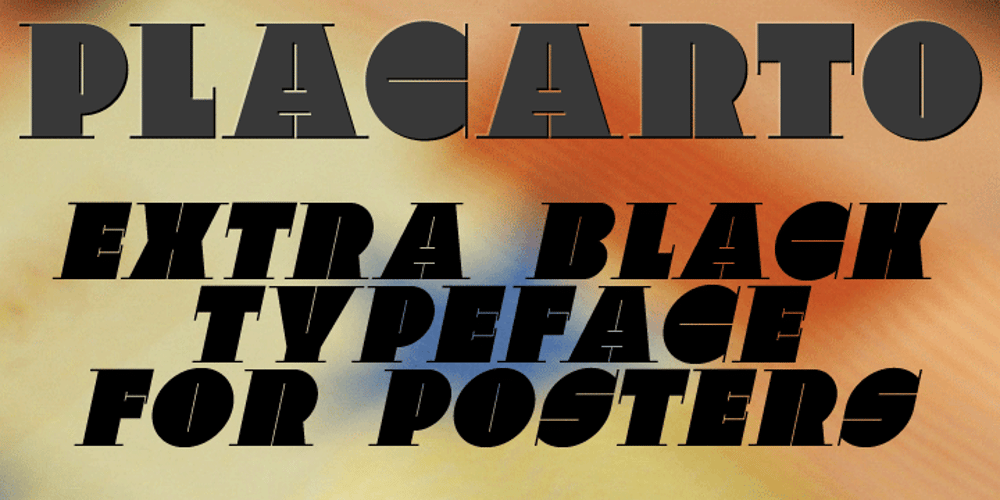
Placarto 4F
Placarto 4F font
Placarto 4F Font Family was designed by Sergiy Tkachenko and published by 4th february. Placarto 4F contains 4 styles and family package options. Extra black typeface designed for making posters with giant letters. “Plakarto” in Spanish means “posters”. For use in advertising.